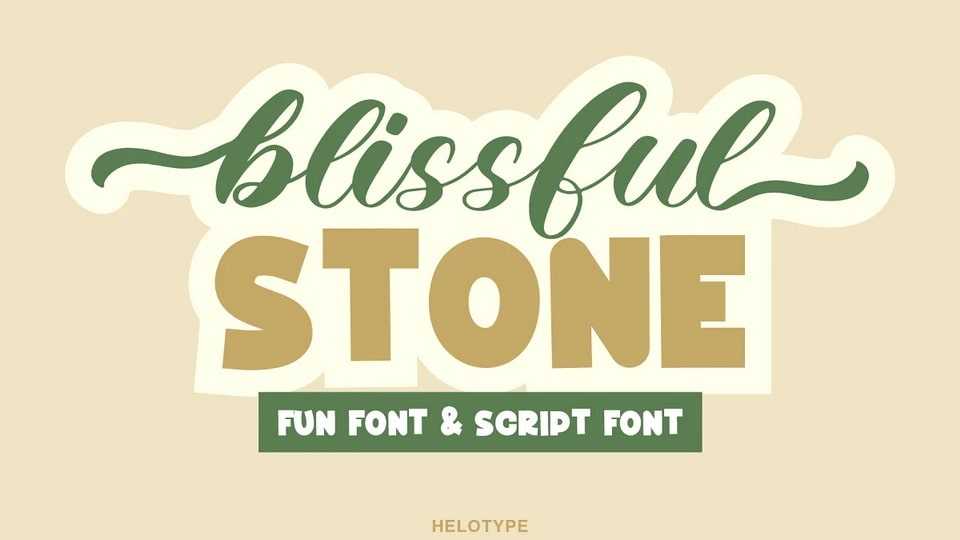
Download Blissful Stone font, a uniquely crafted typeface that exudes a perfect blend of serenity and sophistication. This font boasts a seamless combination of stylish and flowing elements, giving your designs a touch of elegance.